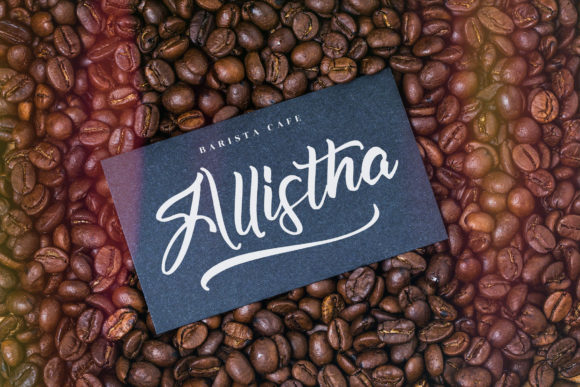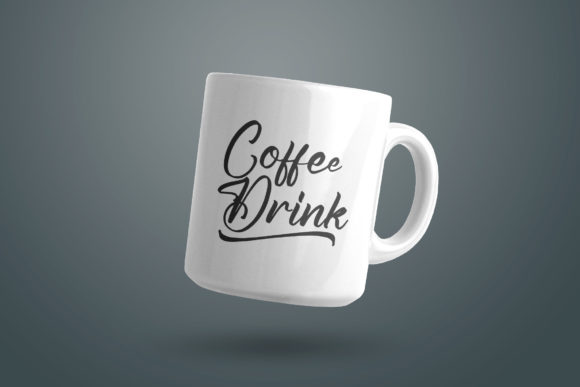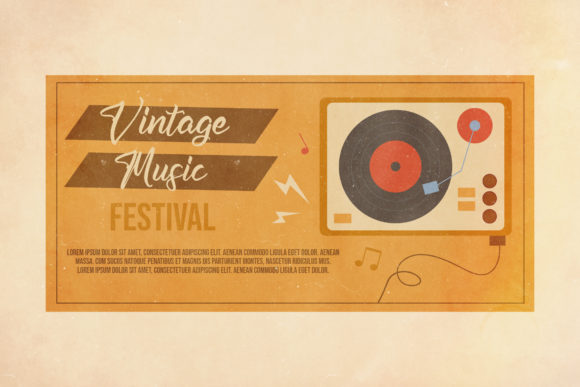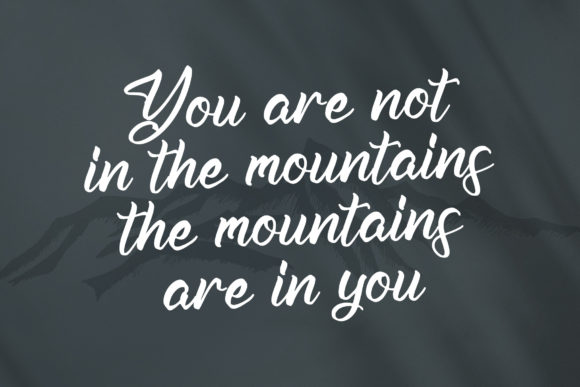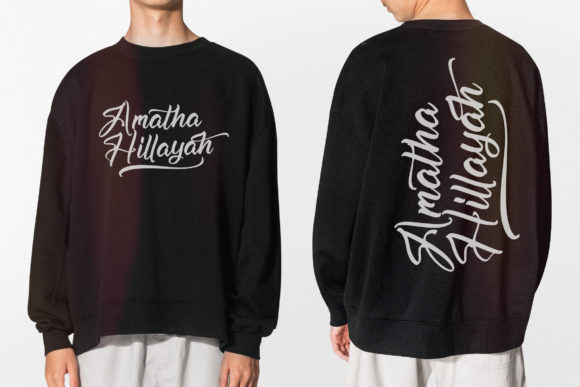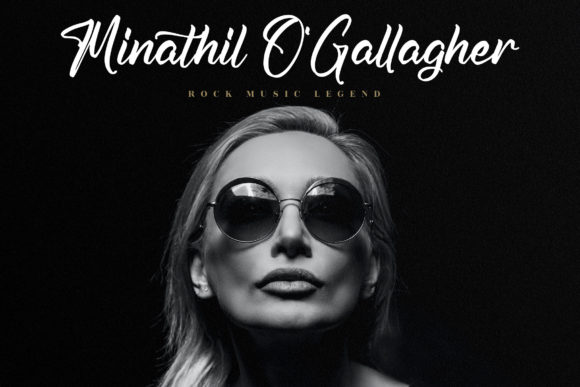
Introduction to Amatha Hillayah Font Font
Fonts play a crucial role in design, and the Amatha Hillayah Font font is a typeface that brings both character and versatility to any project. Whether you’re working on a branding project, a website, or a print design, the Amatha Hillayah Font font offers a unique style that can elevate your work.
Amatha Hillayah is a chic and paint brushed handwritten font.
Key Features of Amatha Hillayah Font Font
Why Choose Amatha Hillayah Font Font?
The Amatha Hillayah Font font is more than just a typeface – it’s a design tool that helps you communicate your message with style and clarity. Its unique character set and versatile design make it suitable for a wide range of applications, from elegant invitations to bold headlines.
With its carefully crafted letterforms and balanced proportions, the Amatha Hillayah Font font ensures readability and visual appeal across all mediums.
What makes Amatha Hillayah Font font special?
The Amatha Hillayah Font font stands out with its unique design, exceptional readability, and versatility across various design applications.